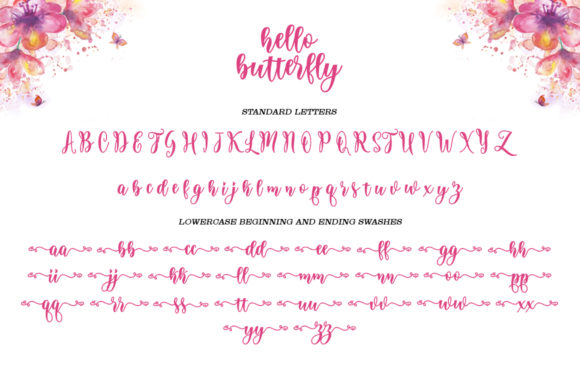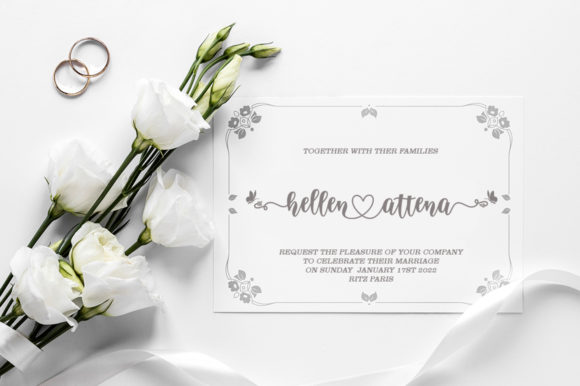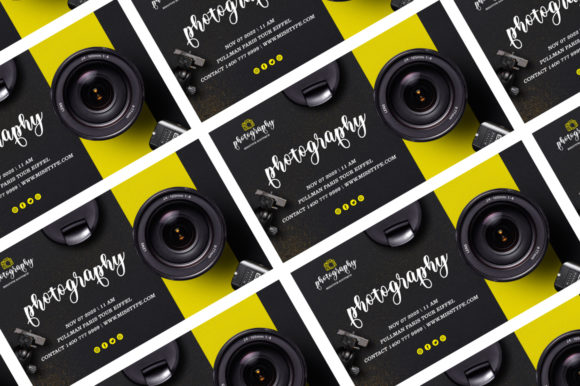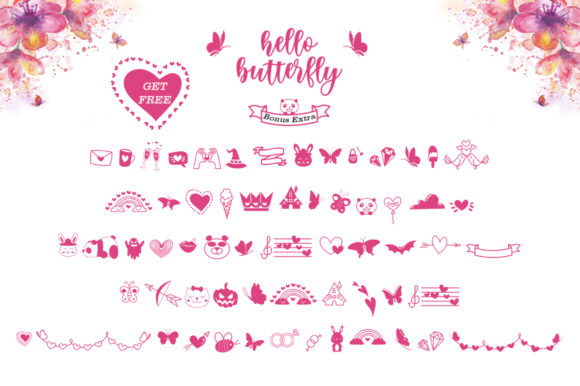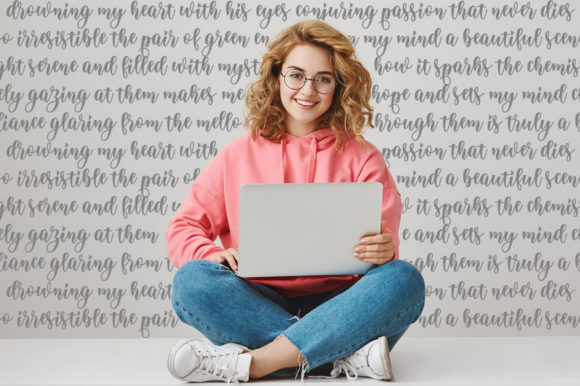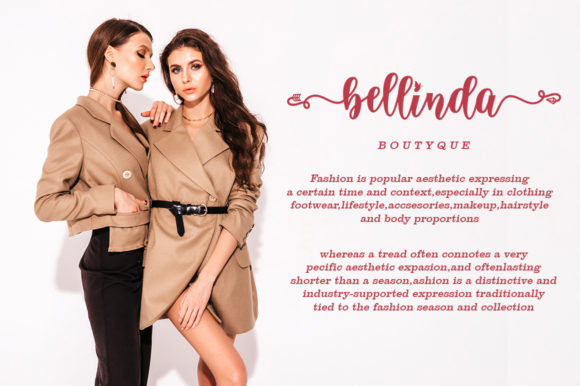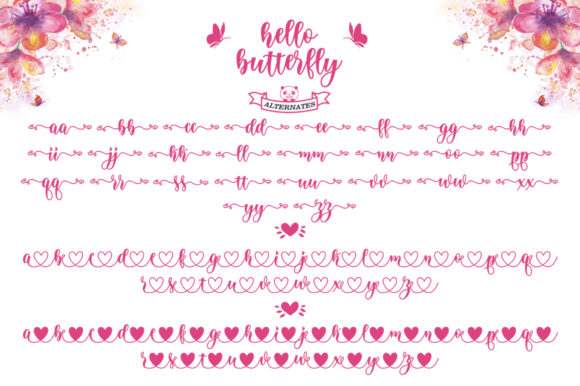
Hello Butterfly Font
About Hello Butterfly Font
Hello Butterfly is a beautiful and romantic handwritten font. It looks lovely on wedding invitations, thank you cards, quotes, greeting cards, logos, business cards and much more.